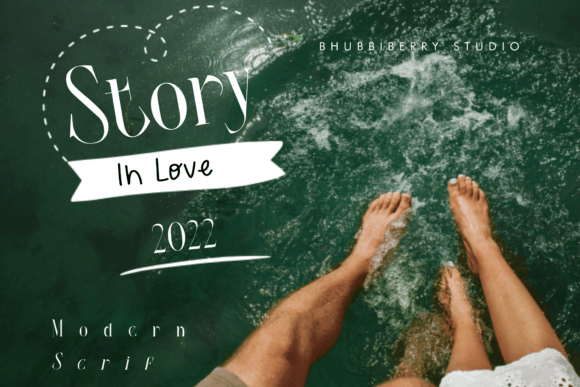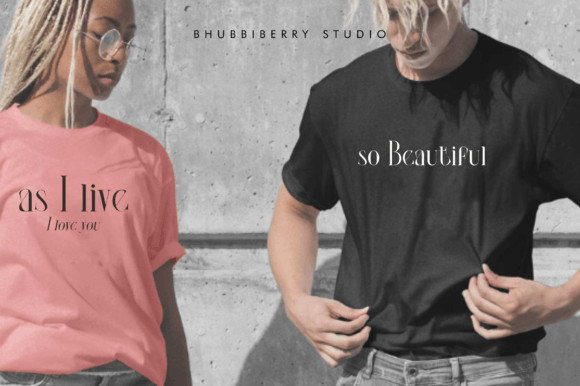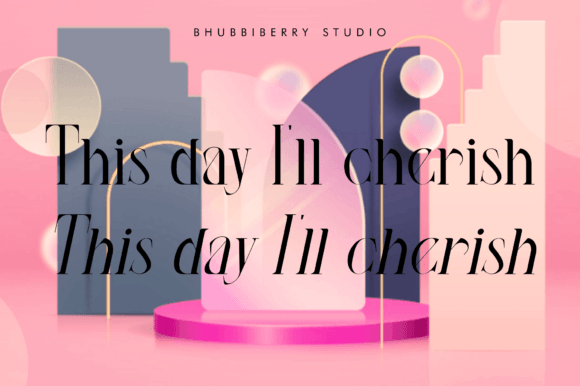
Introduction to Eudaimonia Font
Have you ever been working on a creative project, pouring your heart and soul into it, and then hit a snag with the font? The perfect design is just a click away, but the right font eludes you. This is where the Eudaimonia Font comes in – a modern serif font that will elevate your branding projects, product packaging, and magazine layouts to new heights.
As a designer, you know how crucial it is to have a high-quality design resource at your fingertips. The Eudaimonia Font is a game-changer, offering a free download that’s perfect for expressing words above a transparent background. Its versatility and sophistication make it an invaluable addition to any designer’s toolkit.
Key Features of Eudaimonia Font
- High-quality design: Eudaimonia Font is a beautifully crafted font perfect for creative projects, offering a unique and elegant touch.
- Unique characteristics: Eudaimonia Font features a distinctive and sophisticated design, making it an ideal choice for creative projects requiring a touch of elegance and sophistication.
- Perfect for various designs: This font is suitable for a wide range of creative projects, including branding, packaging, and editorial design, due to its versatility and high-quality design.
Honest Review: Eudaimonia Font
I recently stumbled upon the Eudaimonia Font and was excited to give it a try in my latest creative project. As a designer, I’m always on the lookout for high-quality design resources that can elevate my work. In this review, I’ll share my honest thoughts on this font.
What works well: ✨ The Eudaimonia Font has a unique, elegant design that’s perfect for headings and titles. The font is highly legible, even at smaller sizes, making it a great choice for digital designs. I also appreciate the transparent background, which allows for easy layering and composition.
What doesn’t work well: ⚠️ The font only comes in a few weights, which might limit its versatility for more complex designs. Additionally, the font’s styling can be a bit too ornate for some projects, so it’s essential to consider the overall aesthetic you’re aiming for.
Overall, I’m impressed with the Eudaimonia Font, especially considering it’s available for free download. If you’re looking for a high-quality font for your next creative project, I’d definitely recommend giving it a try. Just be mindful of its limitations and use it thoughtfully.
Key features:
- Unique, elegant design
- Highly legible, even at smaller sizes
- Only a few weights available
The Eudaimonia Font is a versatile design resource that can be used in a variety of creative projects, including branding, logos, and typography-based designs. Its high-quality design and transparent background make it an ideal choice for designers who want to add a touch of elegance to their work.